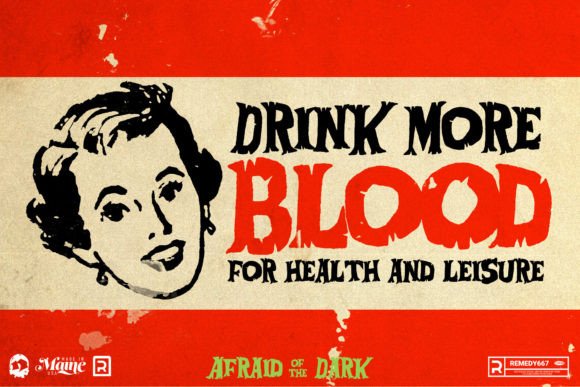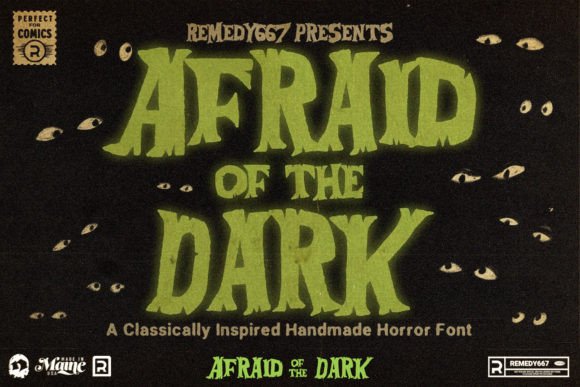
The Dark Side of Design: Unleashing the Power of Afraid of the Dark Font
I’ll never forget the night I was working on a horror-themed project for a client, and I just couldn’t find the right font to capture the eerie atmosphere. The client wanted something that would evoke feelings of classic horror camp, reminiscent of the glory days of William Castle and Vincent Price. I scoured the internet, tried out countless fonts, but nothing seemed quite right. That was until I stumbled upon Afraid of the Dark Font. ✨
Inspired by vintage 70’s horror film posters and title cards, Afraid of the Dark Font is an instant classic that can elevate a multitude of projects, from headlines and t-shirts to album covers and games. In this article, I’ll share my experience with this font, its features, and provide a comprehensive guide on how to use it in various design platforms.
Honest Review: The Good and the Quirks
- 💀 Classic horror vibe: Afraid of the Dark Font perfectly captures the essence of vintage horror films and posters.
- 🎃 Versatility: This font can be used for a wide range of projects, from digital designs to print materials.
- 👻 Unique character: The font’s distressed and worn look adds a touch of eeriness to any design.
- ✅ Easy to read: Despite its horror theme, the font is surprisingly legible, even in smaller sizes.
- 🤔 Limited language support: Afraid of the Dark Font may not support all languages, so be sure to check the character set before using it.
- ⚠️ Not suitable for body text: Due to its distressed nature, this font is best used for headlines or titles, rather than large blocks of text.
A Practical Guide to Using Afraid of the Dark Font
- Experiment with OpenType features, such as glyphs and stylistic alternates, to add more character to your text.
- Explore OpenType features, such as glyphs and stylistic alternates, to add more character to your text.
The Designer Inspiration Behind Afraid of the Dark Font
Afraid of the Dark Font was inspired by the classic horror films of the 1970s, particularly those of William Castle and Vincent Price. The font’s creator aimed to capture the essence of vintage horror film posters and title cards, with a distressed and worn look that’s perfect for horror-themed designs.
| Font Name | Afraid of the Dark Font |
| Author | remedy667 |
| What type of projects is Afraid of the Dark Font best suited for? | Afraid of the Dark Font is perfect for horror-themed projects, such as headlines, t-shirts, album covers, and games. |
| Is Afraid of the Dark Font easy to read? | Yes, despite its horror theme, Afraid of the Dark Font is surprisingly legible, even in smaller sizes. |
| Are there any limitations to using Afraid of the Dark Font? | Yes, Afraid of the Dark Font may have limited language support and is best used for headlines or titles, rather than large blocks of text. |